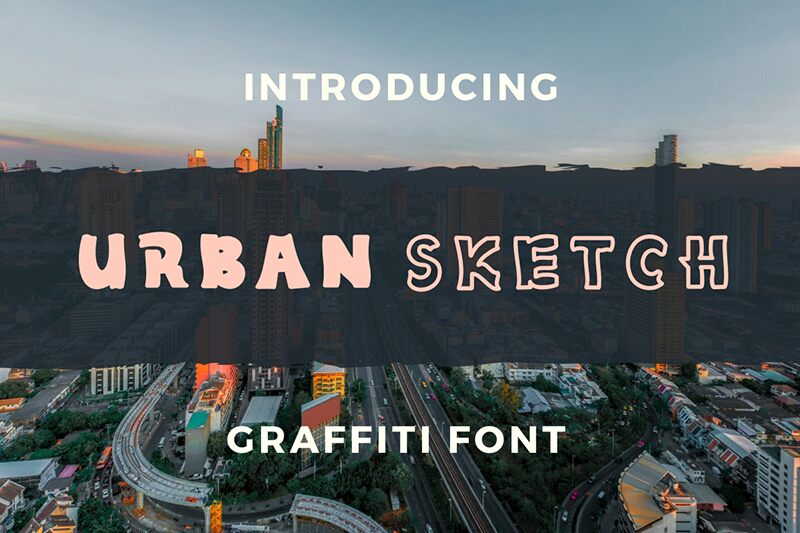
Urban Sketch Outline
Urban Sketch Outline font by Insan Perkasya is a vintage-inspired, free display font with a sketch-like appearance and casual vibe. The outlined design has an animated quality, adding artistic flair to any creative project or urban theme. Its bold appearance makes it suitable for posters, magazines, headlines, or packaging designs.
Use Urban Sketch Outline for logos, movie titles, social media posts (Instagram or YouTube), apparel designs including t-shirts or tops, invitations and greeting cards for wedding events and birthday parties. Use it also in labels and ads especially those of the food industry displayed on storefronts.